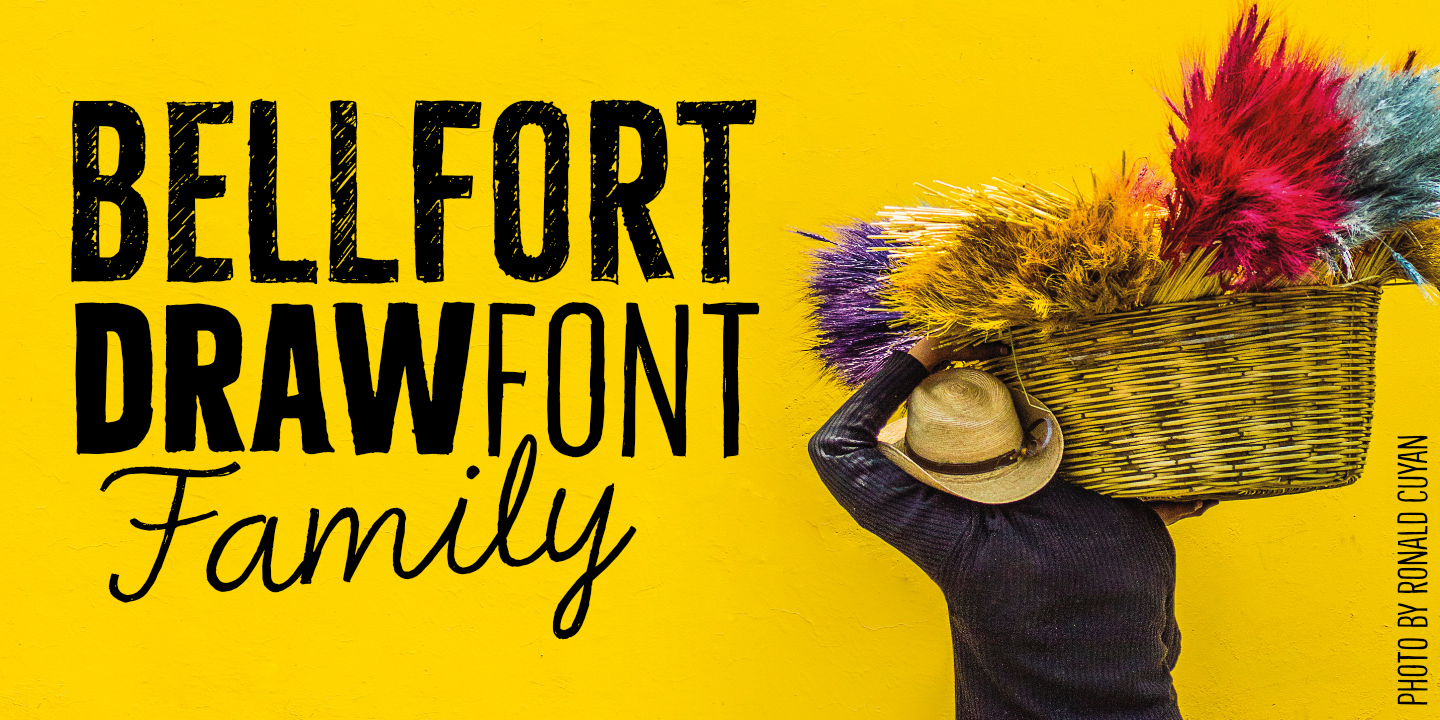
Bellfort Draw Font is perfect for children's book illustrations, art therapy materials, creative workshop branding, handmade craft packaging, artistic studio logos, sketch-style greeting cards, and educational coloring books that require authentic hand-drawn charm.
This font is exciting because it perfectly captures the spontaneous beauty of hand-drawn lettering, featuring organic, sketch-like letterforms that convey creativity, warmth, and artistic authenticity while maintaining excellent readability for various creative applications.
The Bellfort Draw Font family includes regular and bold weights with textured variants, offering uppercase and lowercase letters, playful numerals, artistic flourishes, sketchy punctuation marks, and hand-drawn ornaments that celebrate creative expression.
Creative professionals frequently select Bellfort Draw Font Free Download for projects requiring authentic artistic character and handmade appeal. This charming typeface transforms digital communications into personal, heartfelt expressions that immediately connect with audiences seeking genuine creativity and human touch. The font's artistic nature makes it exceptionally effective for craft businesses, art education materials, and creative workshops where personal expression and artistic authenticity must be communicated through every visual element. Its hand-drawn quality bridges digital efficiency with traditional artistic values, making it invaluable for brands celebrating creativity and individual expression. The organically crafted letterforms maintain their artistic integrity across digital platforms and printed materials, ensuring consistent brand recognition and emotional warmth. Whether you're developing art supply branding, creating educational craft materials, or designing creative workshop promotions, this typeface provides the authentic voice and visual creativity that distinguishes genuine artistic brands from commercial competitors, establishing immediate trust among creative audiences who appreciate handmade quality and the irreplaceable value of human artistic expression in an increasingly digital world.